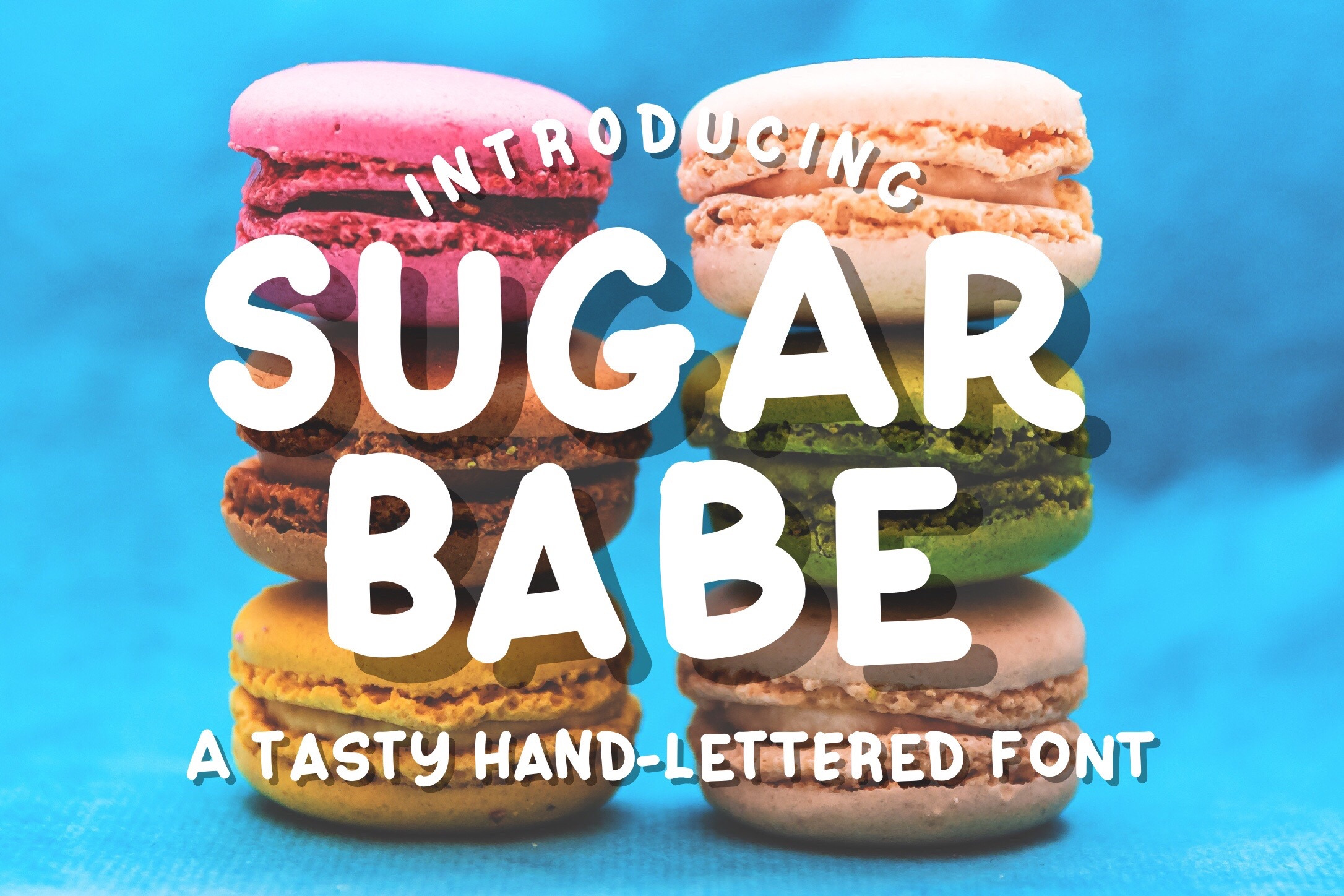
Sugar Babe hand-lettered font
Sugar Babe is a fun hand-lettered font, great for creating cards, quotes and more. This unique font is thick and juicy, like a tasty treat, adding more personality to your projects.